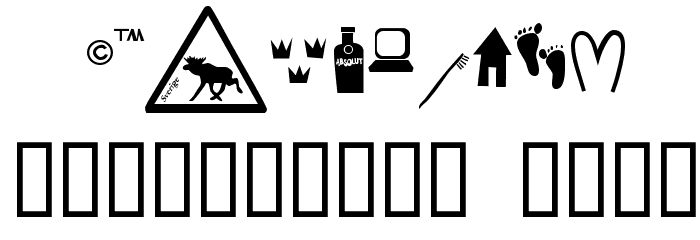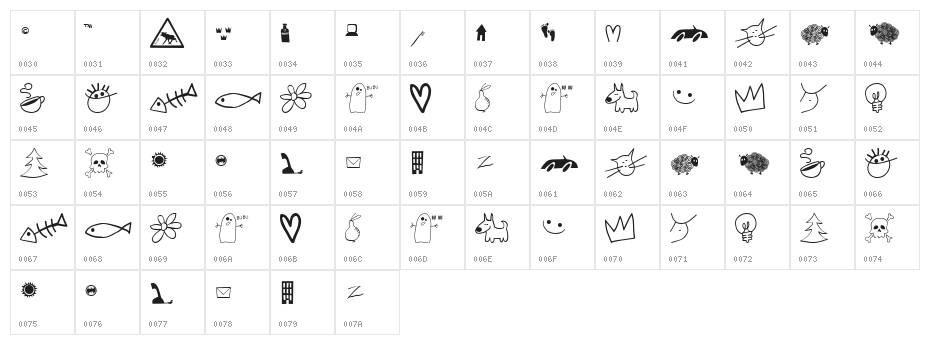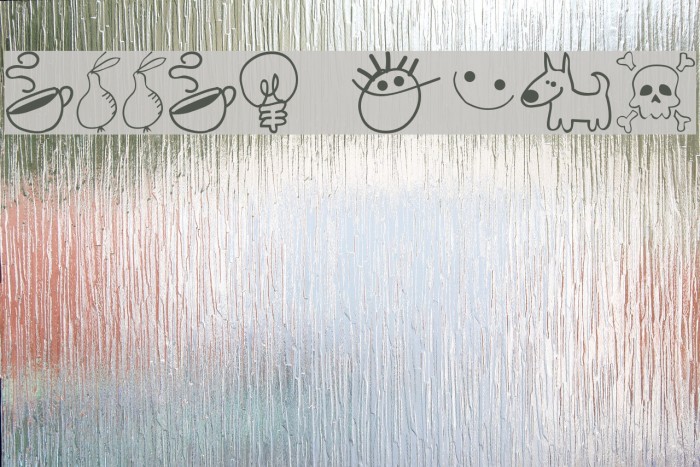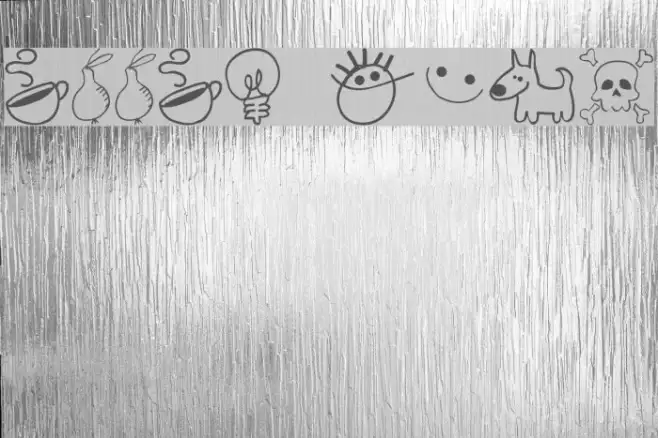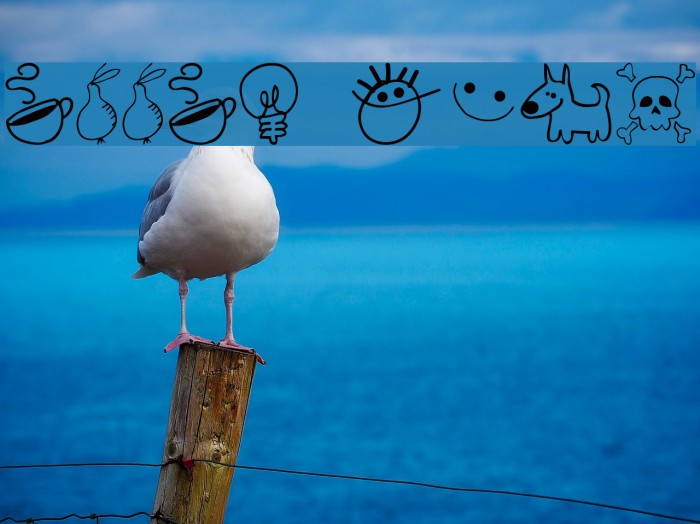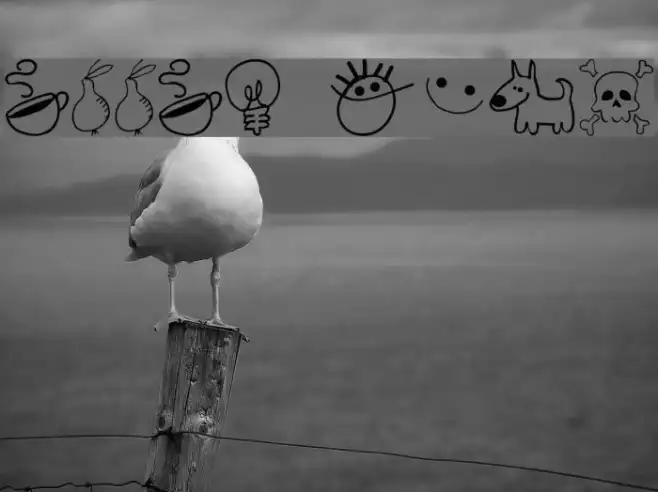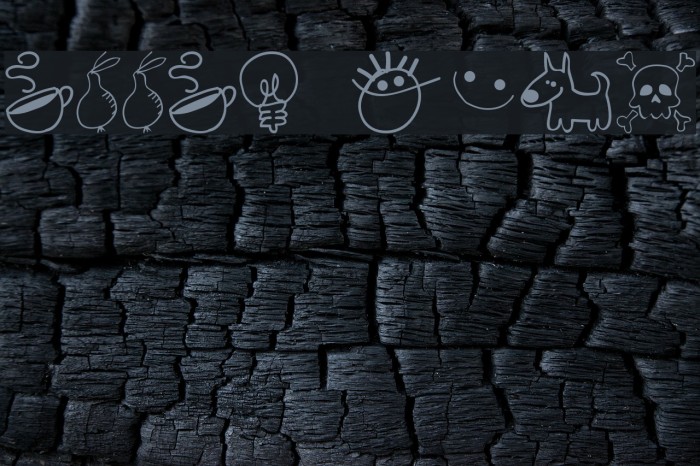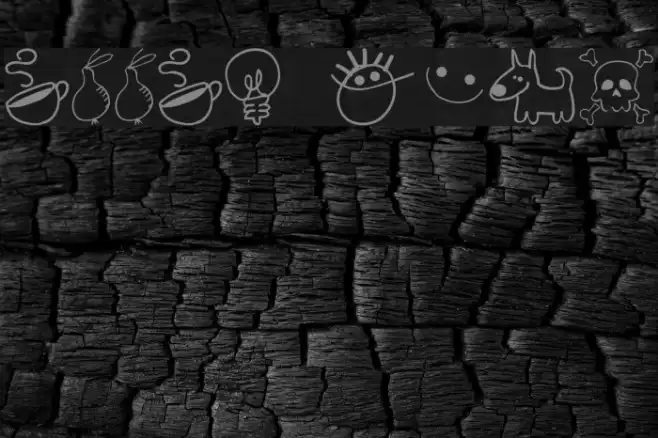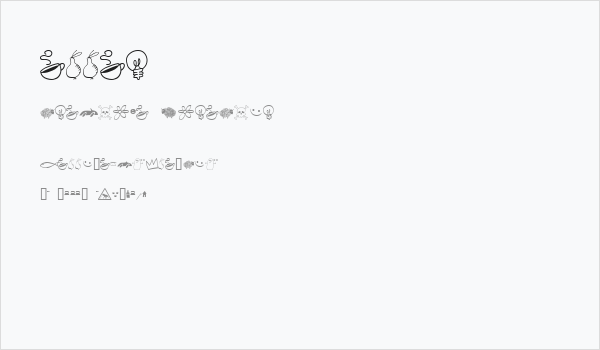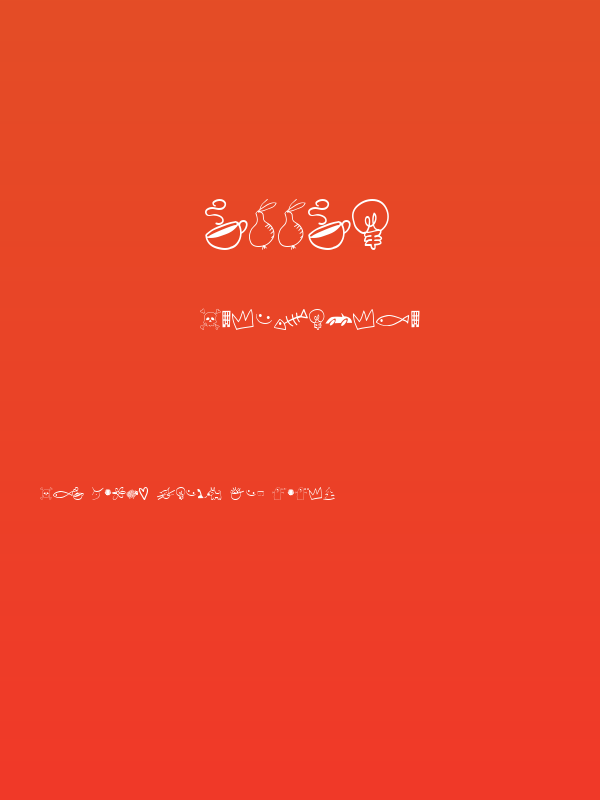
Eller Font
Eller Description
A playful dingbat font composed of hand-drawn doodles and whimsical icons, including animals, objects, and symbols, with a casual and sketchy line style.
| Overall Style | Playful, Whimsical, Decorative |
| Use Case | Decorative icons, Illustrative accents, Themed designs |
| Proposed Projects | Children's books, educational materials, greeting cards, playful branding, scrapbooking, decorative elements. |